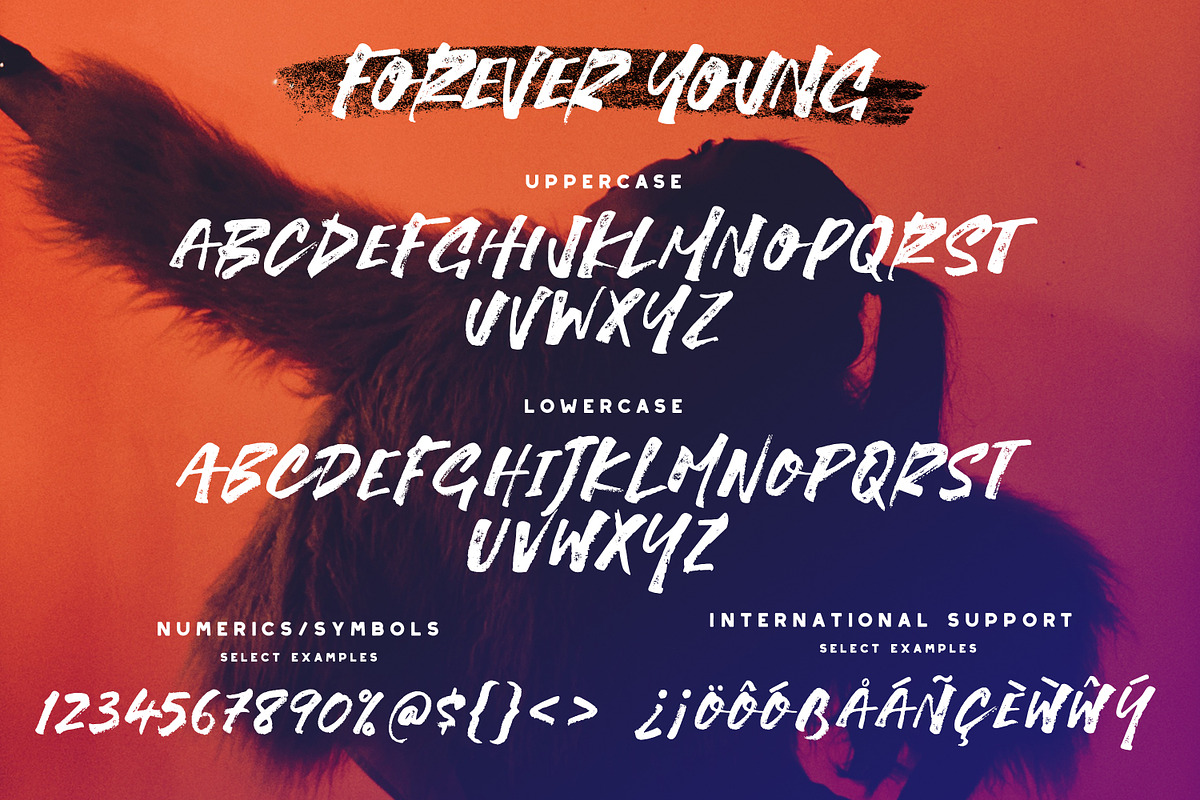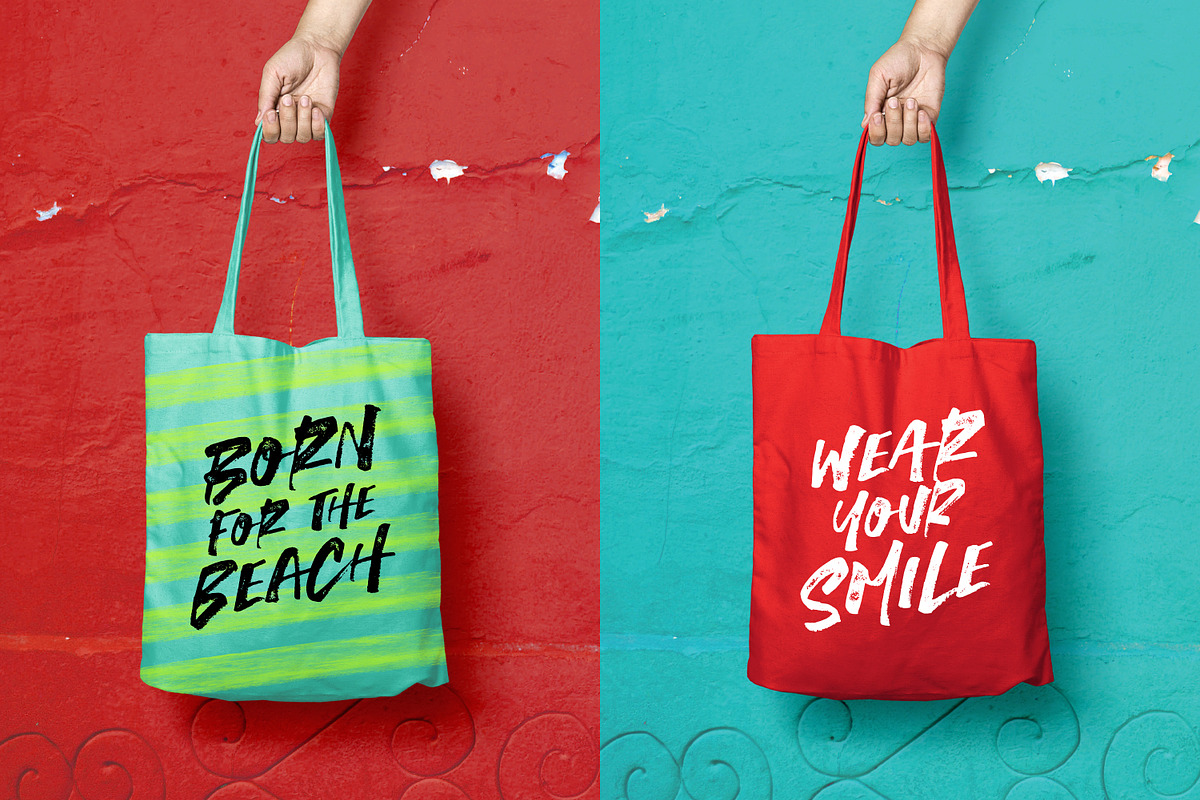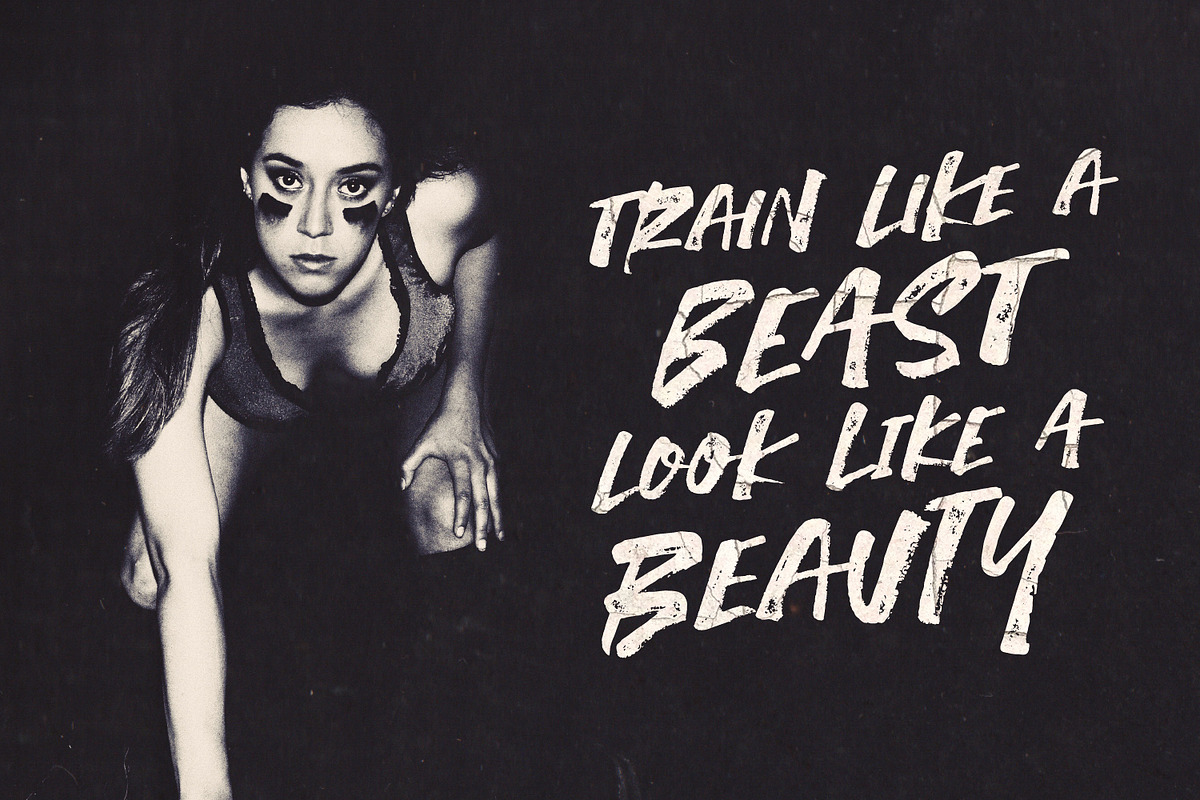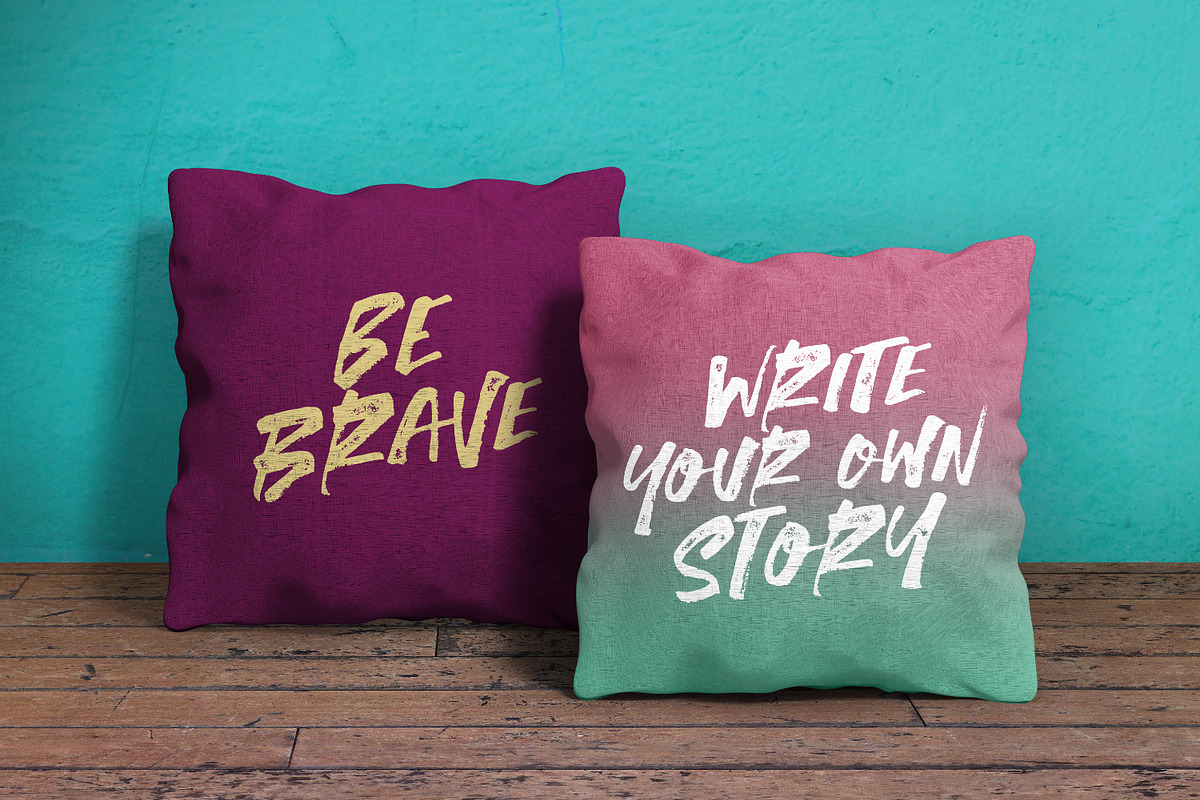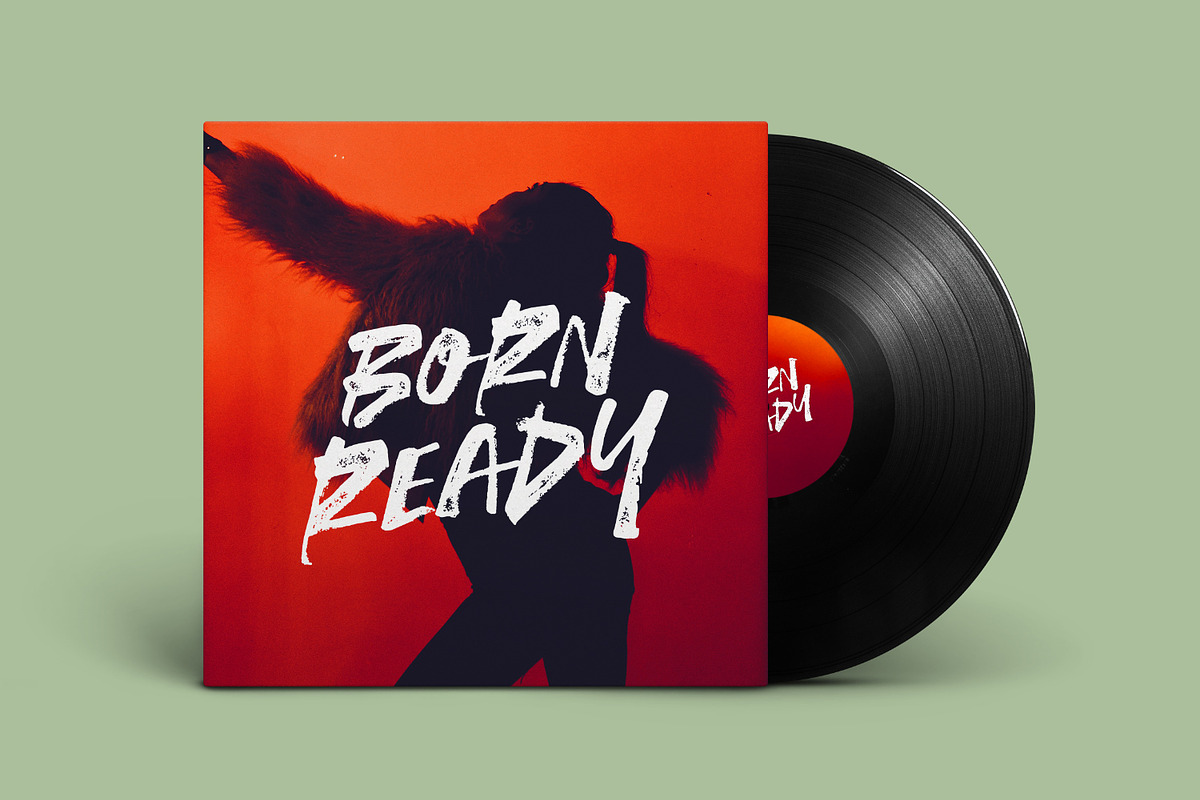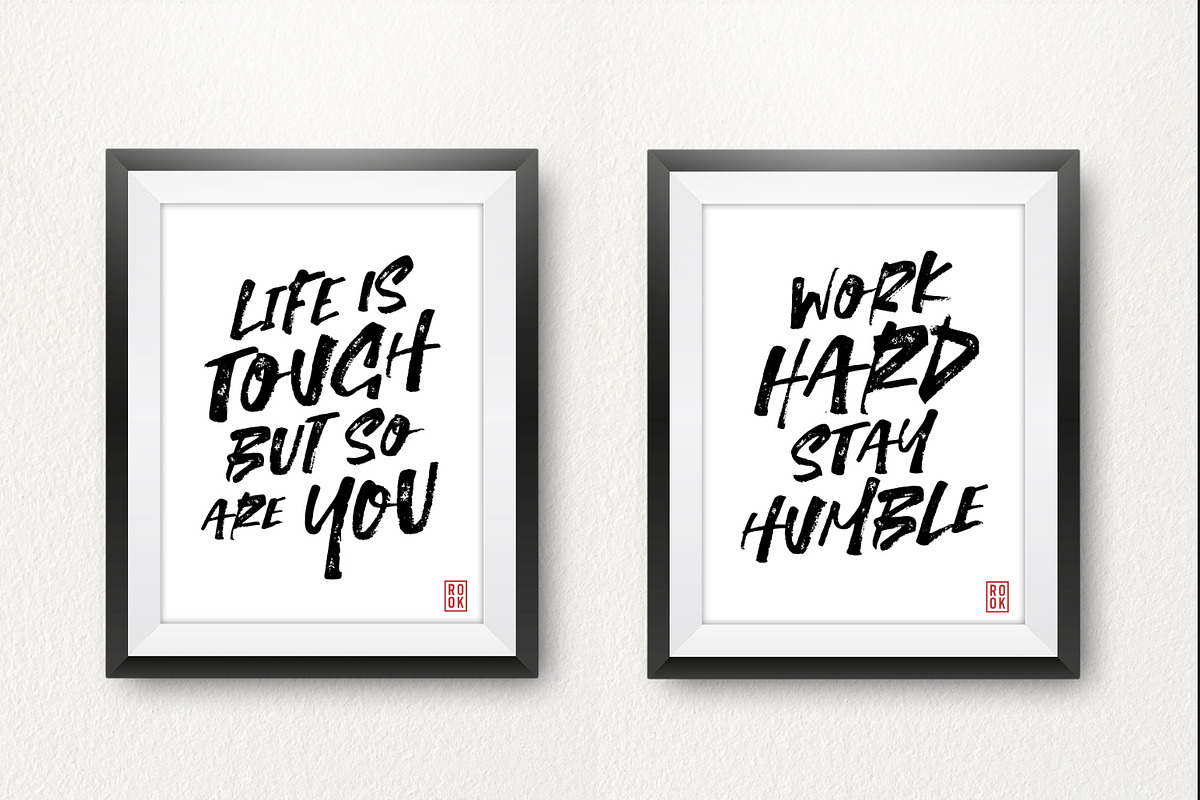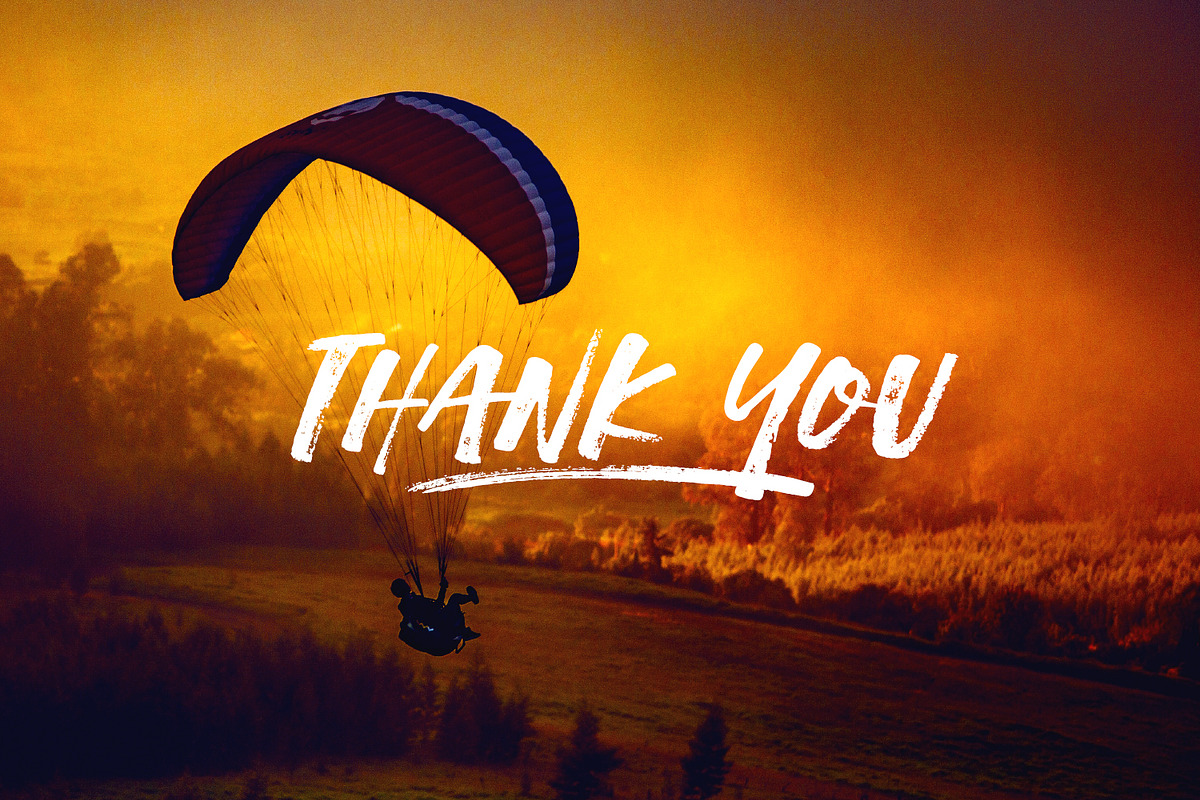
Forever Young Brush Font
Forever Young Brush Font by Greg Nicholls is a font selected for branding, posters, packaging, typography.
- Extra features: Swashes and Splatters - We've included an extra font file containing 4 splatters and 22 swashes to give your text a little e
- The font contains over 180 glyphs!
- Extra features: Swashes and Splatters - We've included an extra font file containing 4 splatters and 22 swashes to give your text a little e
- The font contains over 180 glyphs!
- Try mixing different combinations of uppercase and lowercase characters to get the perfect mix you're looking for.
- Language Support - We've added in a great deal of extra characters to support many different languages.
Why Forever Young Brush Font is worth a look
Forever Young Brush Font by Greg Nicholls fits naturally into Branding, posters, packaging, typography.